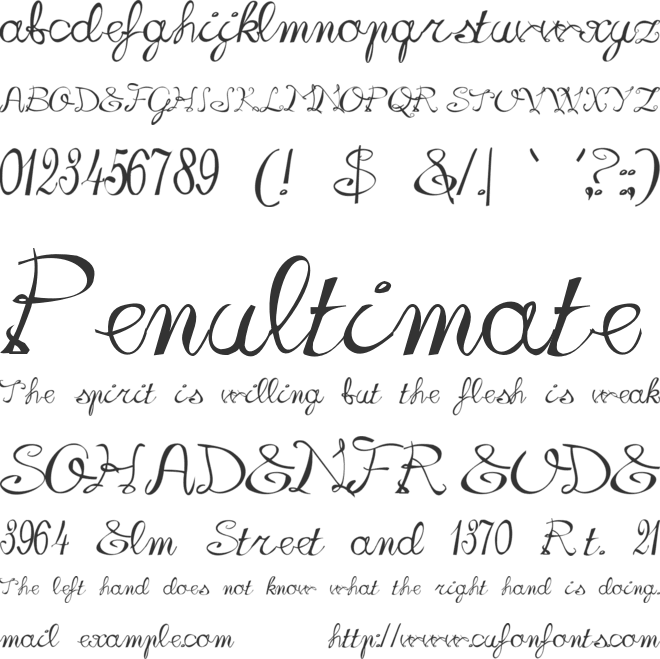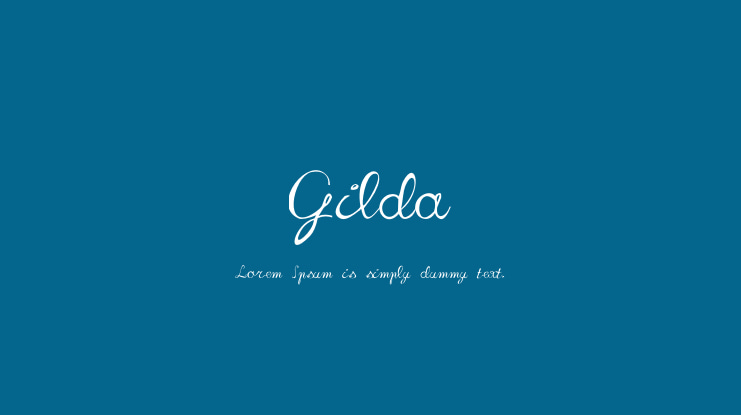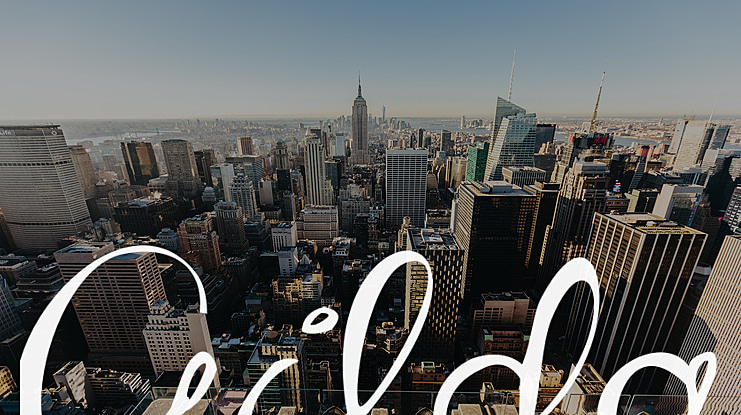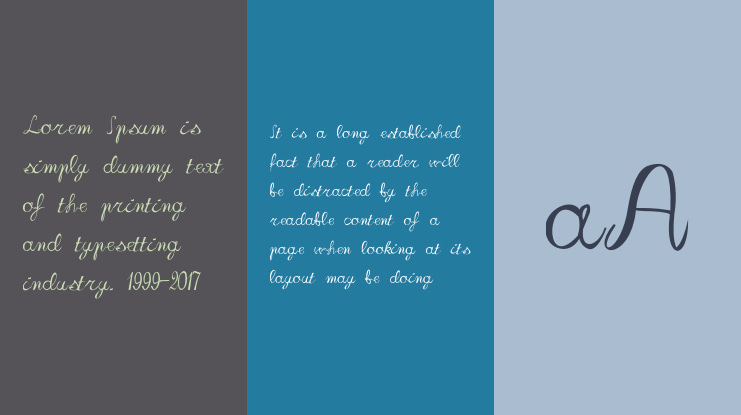
Gilda Font
P. A. Vannucci
Directly from the film directed by Charles Vidor, starring an unforgettable Rita Hayworth and Glenn Ford, the new font for all admirers of the film.
Direttamente dal film diretto da Charles Vidor, interpretato da una indimenticabile Rita Hayworth e da Glenn Ford, il font inedito per tutti gli estimatori del film.